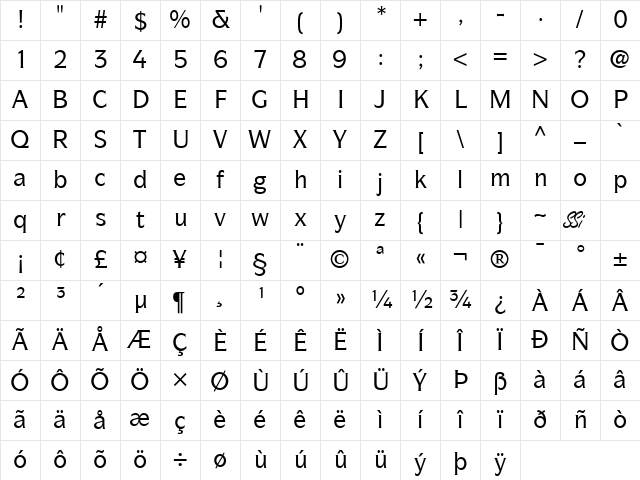
Symbol Book SSi Medium
Complete Symbol Book SSi Medium glyph index. Displaying only characters natively supported by Symbol Book SSi Medium font.
Design Context for Symbol Book SSi
Symbol Book SSi is a composed and adaptable typeface that performs quietly and consistently across a wide range of design contexts.
Pro Tip: Use Symbol Book SSi in both headline and body roles to test its range before committing to a single application.